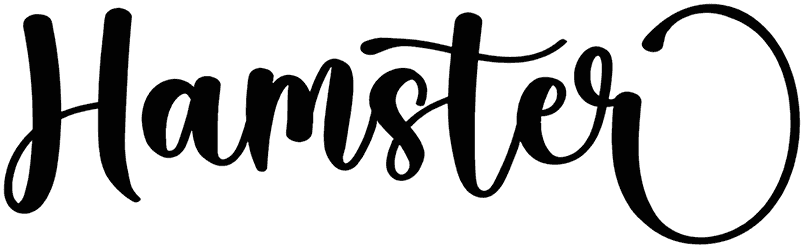
Hamster Font
Wanna have soft yet sweet titles? We have the artistic effect for you. Create better flyers, business cards, banners, or book covers by having this well-designed script font. The Hamster will be applied to your text through a few simple clicks and level up the values of your work.